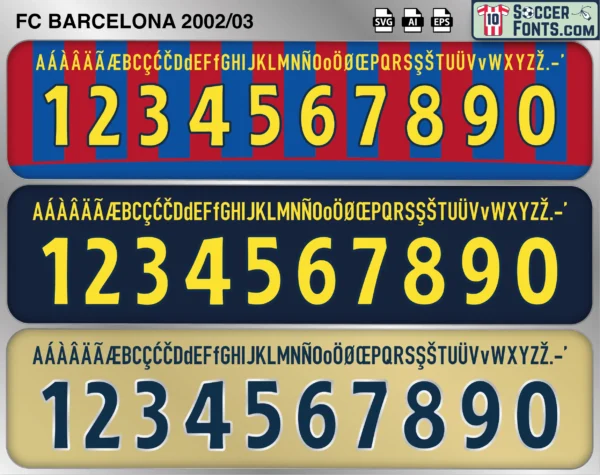
FC Barcelona 2002-03 Font UCL
The FC Barcelona 2002-03 Font UCL font is an editable soccer jersey lettering design in vector format inspired by the FC Barcelona UEFA Champions League kit style used during the 2002-03 football season. This football font artwork is prepared for football shirt recreations, custom jersey projects, football kit mockups and sports graphic design workflows.
The 2002-03 season saw FC Barcelona produce some of its strongest performances on the European stage despite facing challenges domestically. With players such as Xavi Hernández, Carles Puyol, Patrick Kluivert, Javier Saviola, Luis Enrique and Philip Cocu, Barcelona competed in the UEFA Champions League against many of the continent’s leading clubs. The tournament provided an opportunity for emerging players to gain valuable experience while established figures helped maintain the club’s reputation as one of Europe’s most respected football institutions. Barcelona advanced through the competition with a series of impressive results that demonstrated the squad’s quality and resilience.
The FC Barcelona 2002-03 Font UCL font became associated with a memorable Champions League campaign in which Barcelona reached the quarter-finals. The club remained unbeaten throughout much of the tournament and delivered several notable performances before eventually being eliminated by Juventus after extra time in a closely contested tie. The European campaign offered supporters optimism during a period of transition and highlighted the development of players who would later become central to future successes. FC Barcelona shirts from the 2002-03 Champions League season remain highly collectible among football shirt enthusiasts because of their connection to early European experiences for future club legends and an important chapter in Barcelona’s modern history. The FC Barcelona 2002-03 Font UCL font reflects the club’s continued presence among Europe’s elite during a season of change and development.